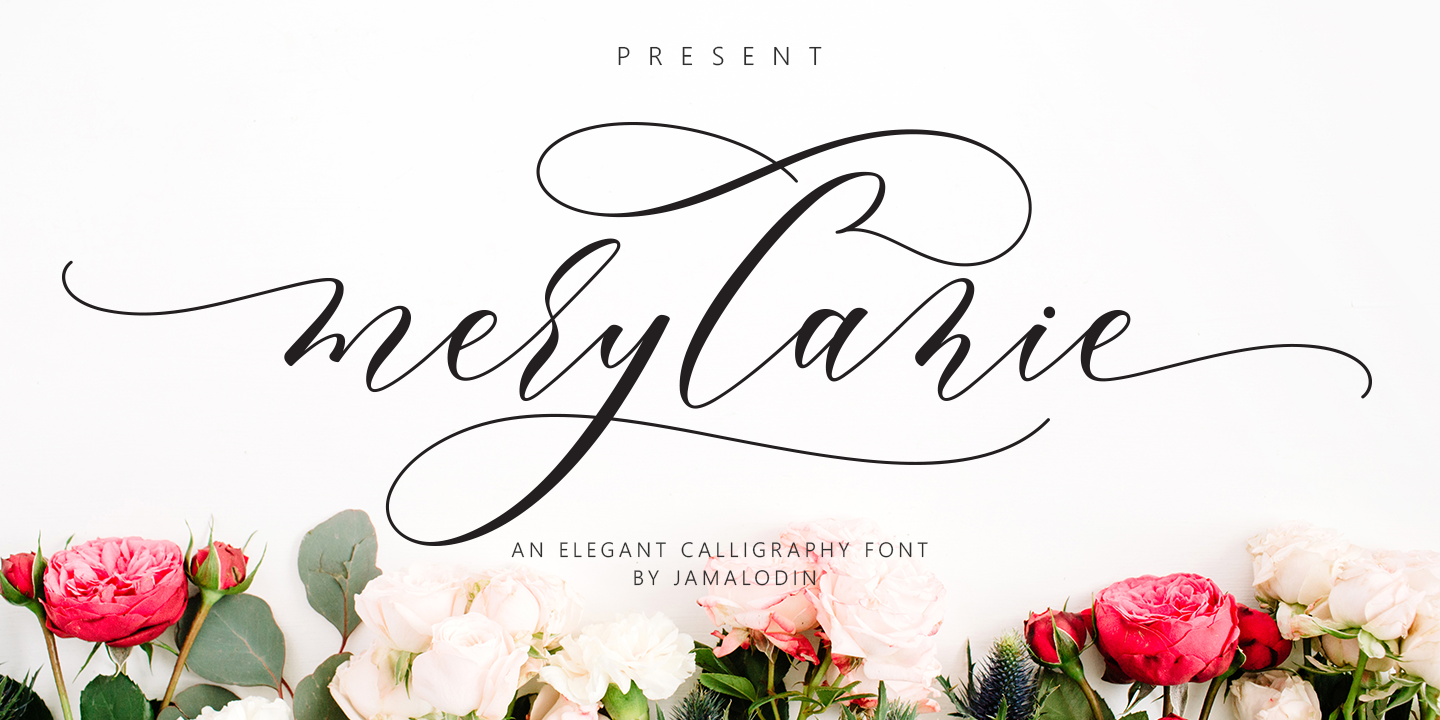
Merylanie Script Font is perfect for various applications including elegant wedding invitations, luxury brand signatures, romantic greeting cards, feminine beauty product packaging, upscale boutique logos, sophisticated personal branding, handwritten-style marketing materials, intimate love letters, premium stationery designs, and graceful calligraphy projects.
What makes Merylanie Script Font so exciting is its breathtaking ability to capture the intimate elegance of personal handwriting with sophisticated flourishes that speak directly to the heart. This romantic typeface features flowing, script letterforms with delicate curves and graceful connections that evoke the timeless beauty of handwritten love letters and personal correspondence. The font's feminine character and romantic aesthetic make it ideal for brands that want to convey intimacy, elegance, and personal touch to audiences who appreciate handcrafted beauty, romantic gestures, and sophisticated feminine design.
Merylanie Script Font family includes multiple weights and styles: Light, Regular, Bold, Elegant, Flourish, Condensed, Extended, Romantic, and beautifully flowing Italic variants. Each family member maintains the font's signature romantic elegance while offering different levels of visual impact and stylistic flexibility for diverse feminine and luxury applications.
The Merylanie Script Font Free Download provides designers with access to a romance-inspired typeface that excels in luxury and feminine markets. Whether you're creating intimate wedding brand identities, designing romantic marketing materials, or developing elegant personal branding experiences, this font delivers the sophisticated aesthetic needed to connect with romance-seeking audiences and luxury-conscious consumers. Its script styling and romantic essence make it particularly effective for wedding planners, beauty brands, and luxury feminine businesses.
Typography romantics will appreciate the flowing elegance and intimate craftsmanship in Merylanie Script Font's design. The font features gracefully connected letterforms with romantic flourishes, optimized spacing for elegant applications, and carefully balanced proportions that ensure excellent readability while maintaining its intimate character. From wedding invitation suites to luxury brand signatures, this typeface maintains its romance and elegant appeal across all feminine contexts.
For luxury web designers, Merylanie Script Font provides outstanding performance in romantic digital environments and feminine luxury platforms. The font's technical specifications are optimized for elegant presentations while preserving the flowing, handwritten edges that define its romantic character. Its versatility makes it suitable for both static romantic content and interactive luxury experiences.
Creative professionals working in wedding industry, beauty brands, luxury feminine products, and romantic services will find Merylanie Script Font to be an essential tool for projects requiring intimate visual communication. The font's ability to convey romance, elegance, and personal intimacy makes it invaluable for brands targeting feminine demographics and romance-focused audiences.
Design agencies specializing in luxury feminine and romantic brands appreciate Merylanie Script Font's versatility in creating memorable elegant identities.